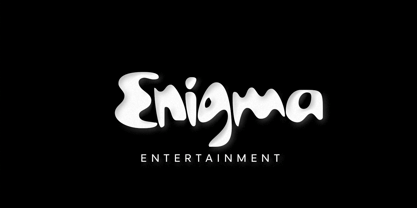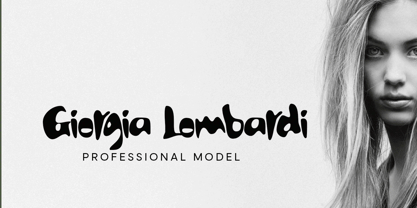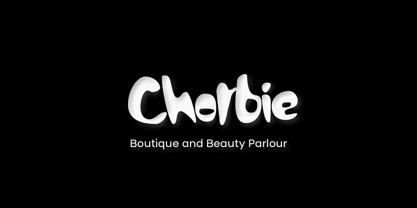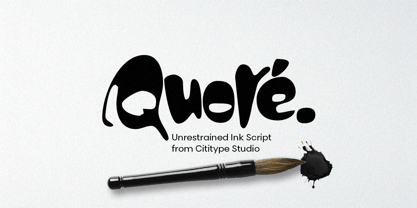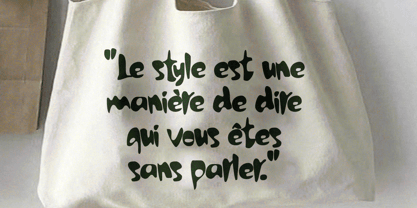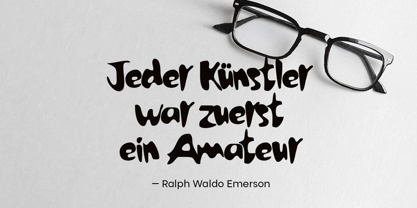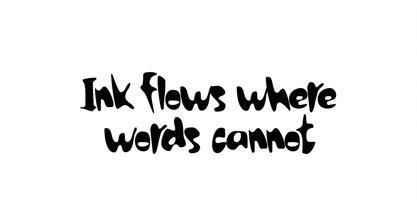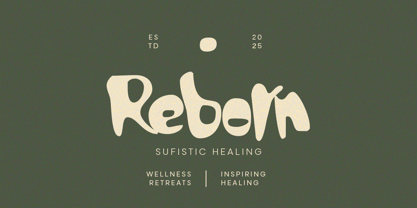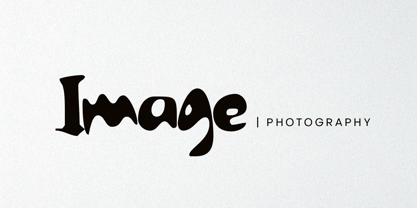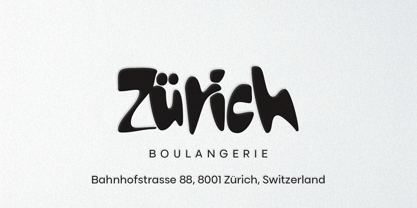
Quore
by Cititype
The Quore Font Family was designed by Muhammad Ridha Agusni, Siti Saribanon Nurjannah and published by Cititype. Quore contains 1 styles. More about this family
Quore is a bold yet graceful typeface that captures the natural flow of ink, reflecting the beauty of hand-drawn lettering. Its organic curves and fluid strokes create a sense of warmth and authenticity, making it perfect for adding personality to any project. Whether for branding, headlines, or creative designs, Quore offers a unique balance of artistry and readability.
Designers: Muhammad Ridha Agusni, Siti Saribanon Nurjannah
Foundry: Cititype